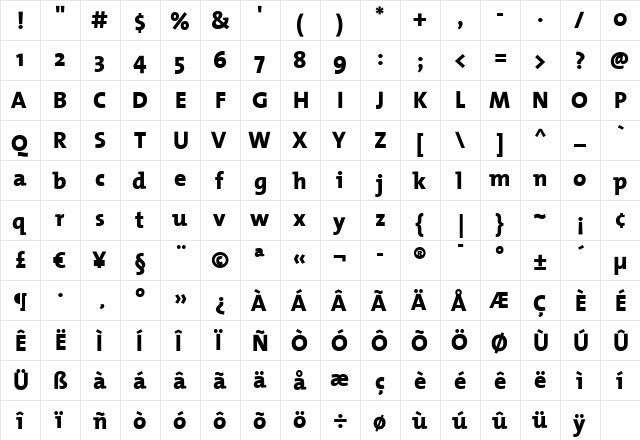
TheMix ExtraBold Font Preview
TheMix ExtraBold
TheMix ExtraBold Font Details
| Style | ExtraBold |
| Foundry | Copr. Luc as de Groot |
Design Context for TheMix Typeface
TheMix takes a measured approach to typography — its balanced proportions and neutral character make it a reliable workhorse for both digital and print work. The heavy weight commands attention and anchors typographic hierarchies.